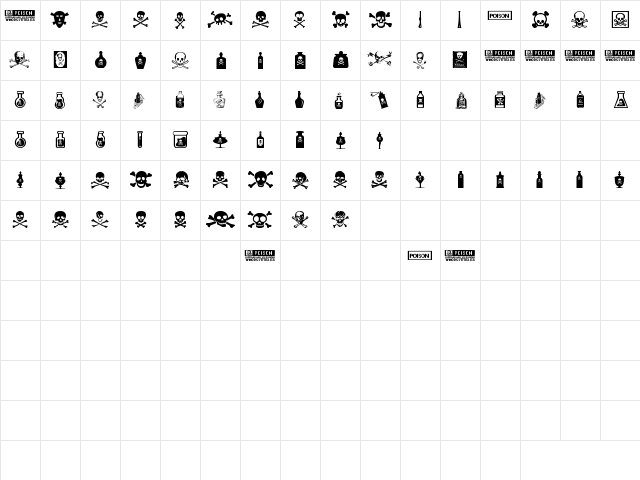
Vintage Poison Regular
Design Context for Vintage Poison Typeface
Vintage Poison has the warm character of retro typography — evoking diners, record sleeves, and the golden age of print advertising.
Font Pairing: Combine Vintage Poison with a simple slab or neutral sans — period-accurate companions reinforce the vintage feel without competing for attention.
Pro Tip: Use Vintage Poison for headlines and pull quotes rather than body copy — its personality is best appreciated in short, focused bursts.